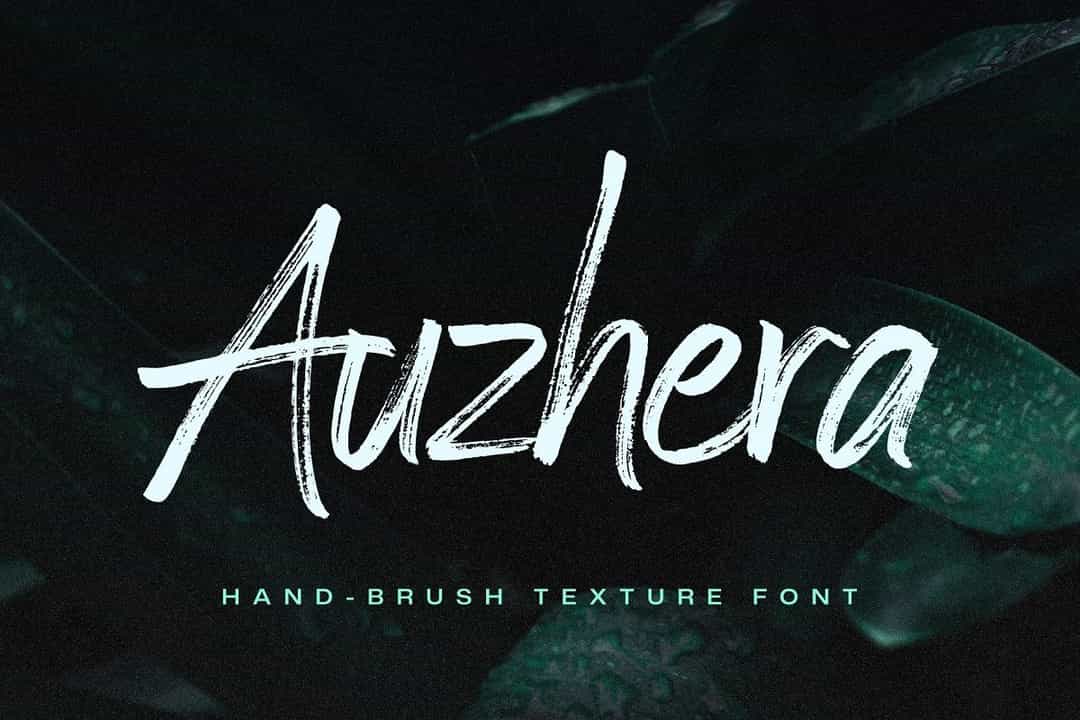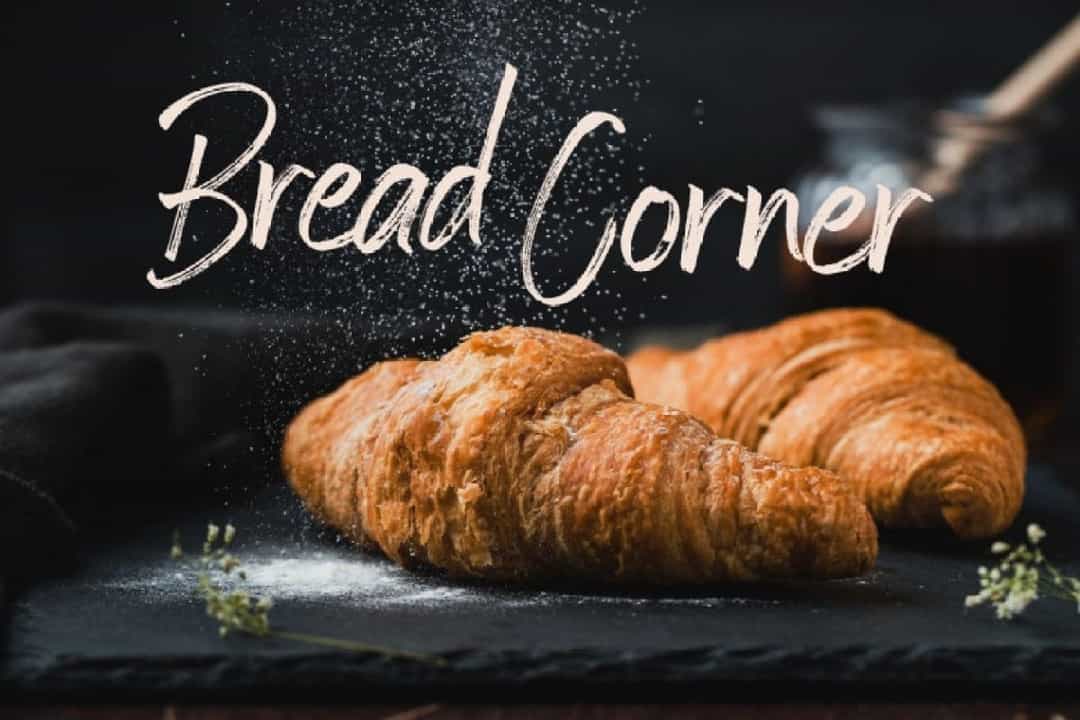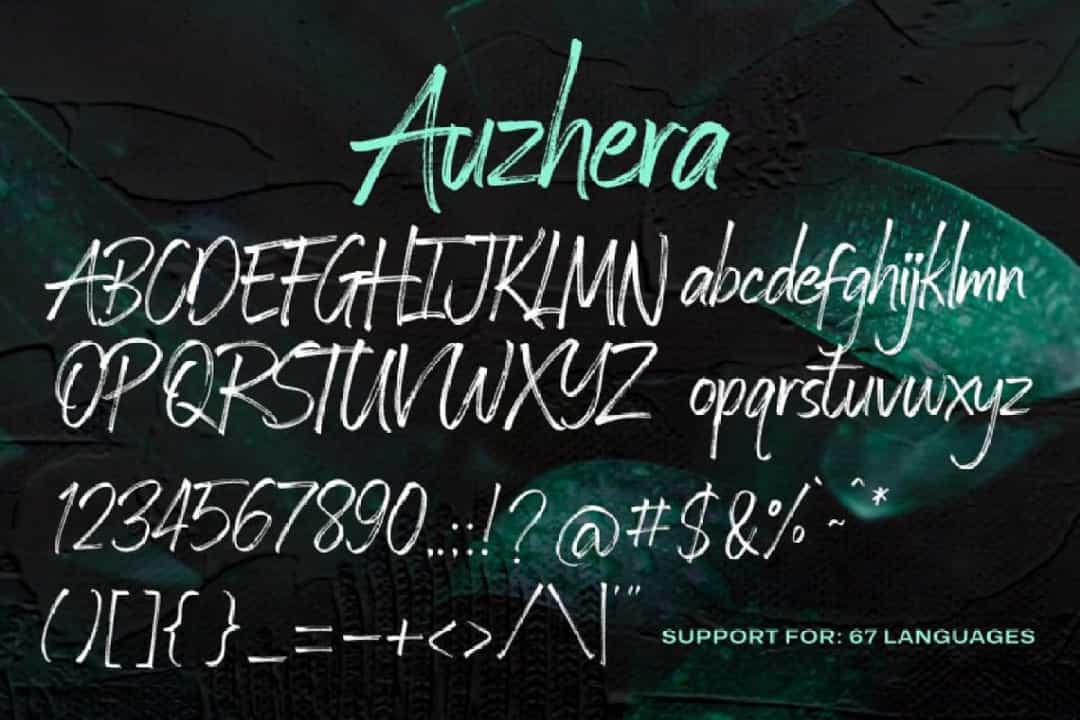
Auzhera, created using an authentic analog brush pen, offers an incredible written brush font that will take your designs to new heights! Carefully considered details provide Auzhera with its distinct brush-like texture for an authentic handwritten effect that gives designs an edge they would not get otherwise.